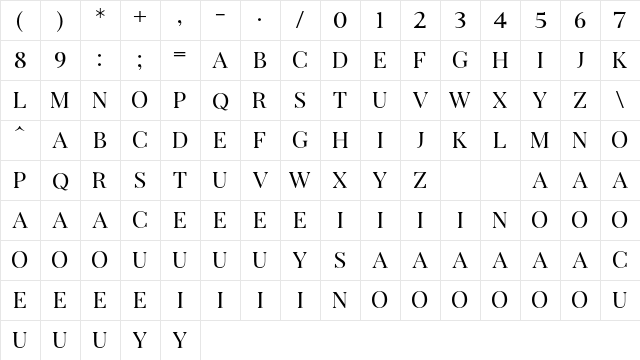
ArterioNonCommercial Regular
| Designer | Robin Campistron |
Design Context for ArterioNonCommercial Typeface
ArterioNonCommercial takes a measured approach to typography — its balanced proportions and neutral character make it a reliable workhorse for both digital and print work.